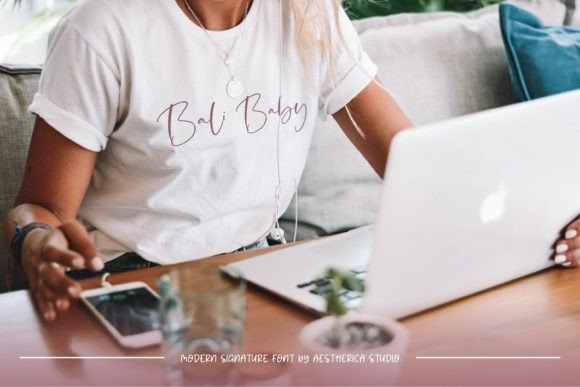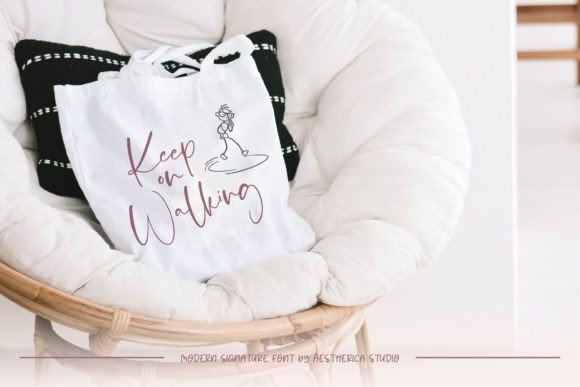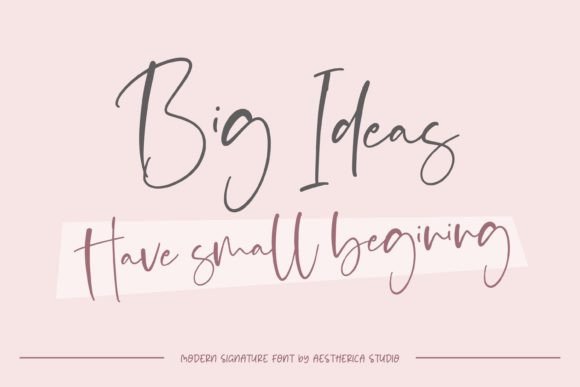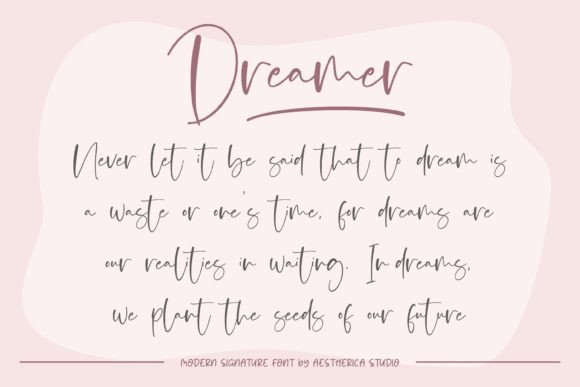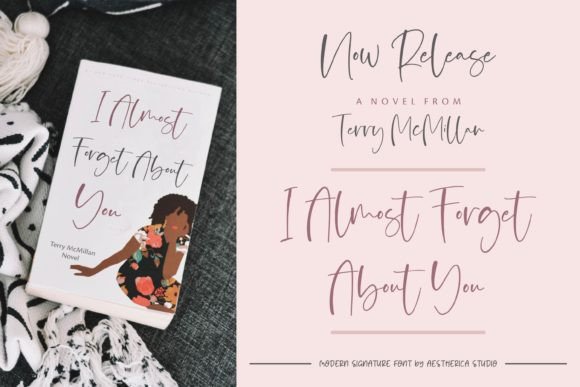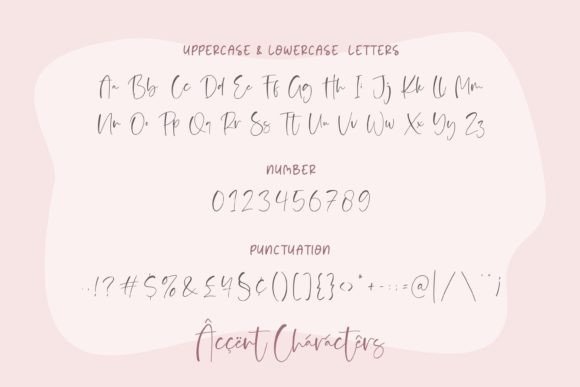
Introduction to Signatica Font Font
Fonts play a crucial role in design, and the Signatica Font font is a typeface that brings both character and versatility to any project. Whether you’re working on a branding project, a website, or a print design, the Signatica Font font offers a unique style that can elevate your work.
Signatica is a handwritten script font with a clear style and dramatic movement.
Signatica is perfect for branding projects, logos, wedding designs, social media posts, advertisements, product packaging, product designs, label, photography, watermark, invitation, stationery, and any projects that need handwriting touch .
Key Features of Signatica Font Font
The Signatica Font font is more than just a typeface – it’s a design tool that helps you communicate your message with style and clarity. Its unique character set and versatile design make it suitable for a wide range of applications, from elegant invitations to bold headlines.
With its carefully crafted letterforms and balanced proportions, the Signatica Font font ensures readability and visual appeal across all mediums.
What makes Signatica Font font special?
The Signatica Font font stands out with its unique design, exceptional readability, and versatility across various design applications.